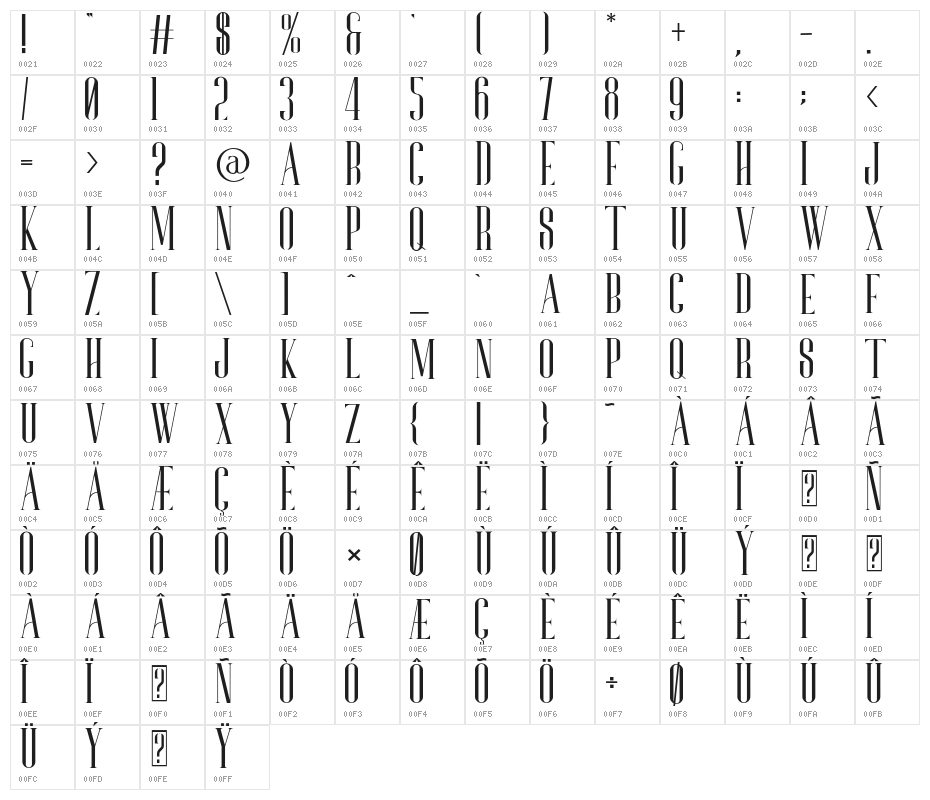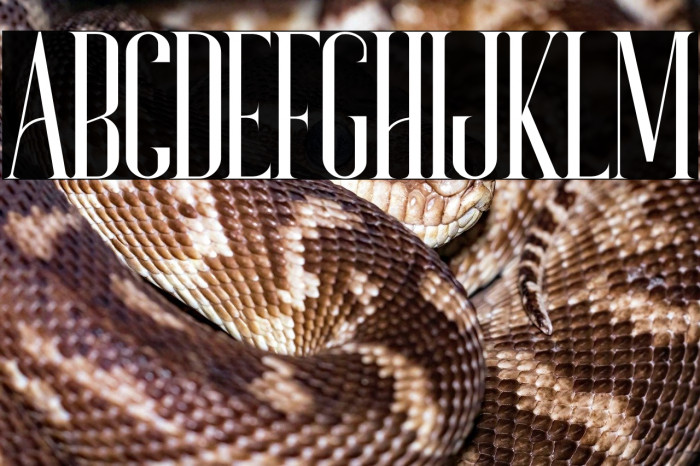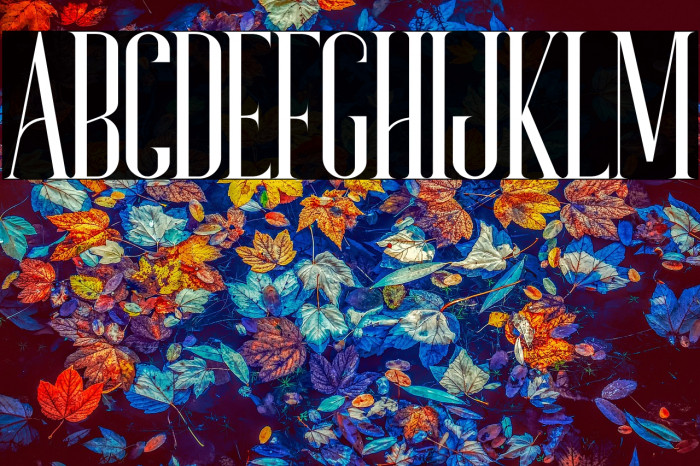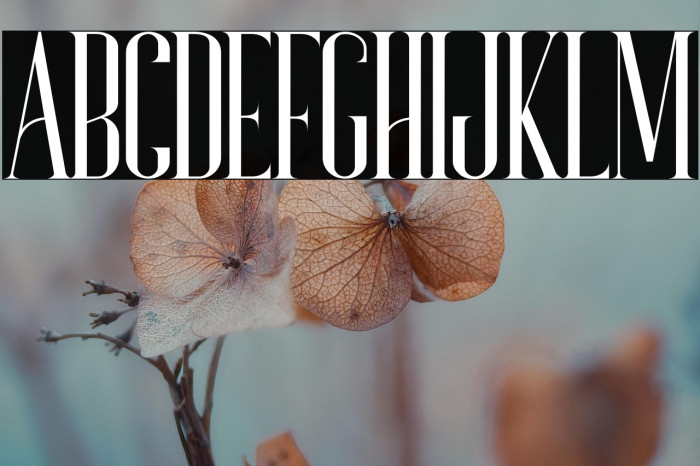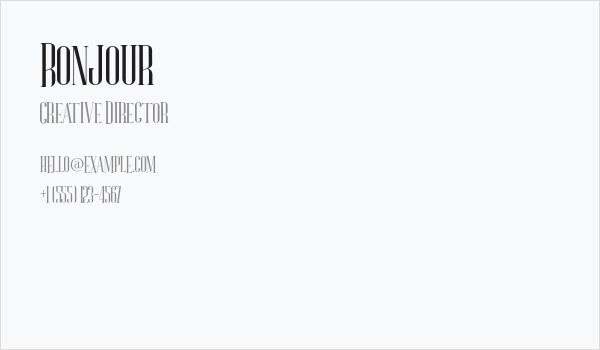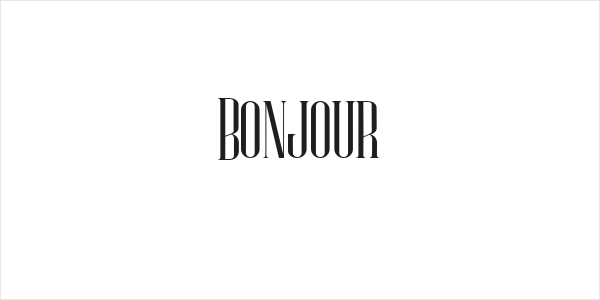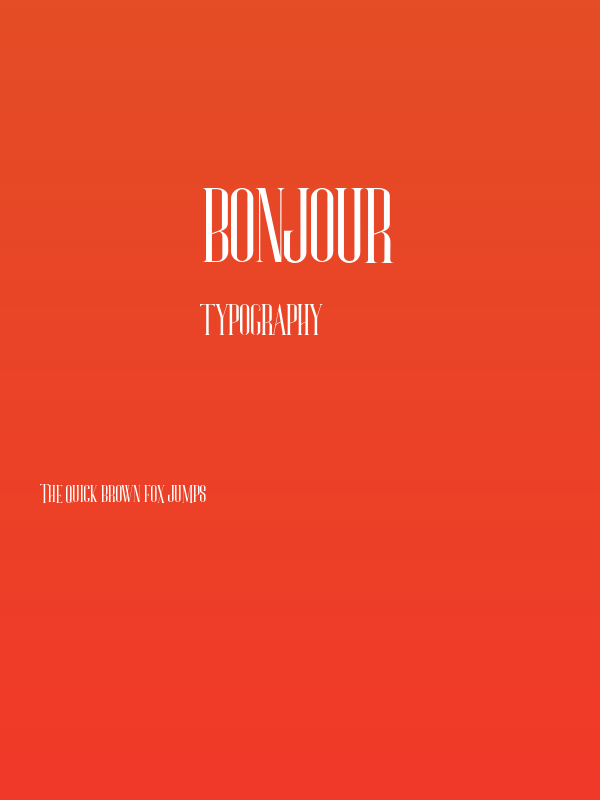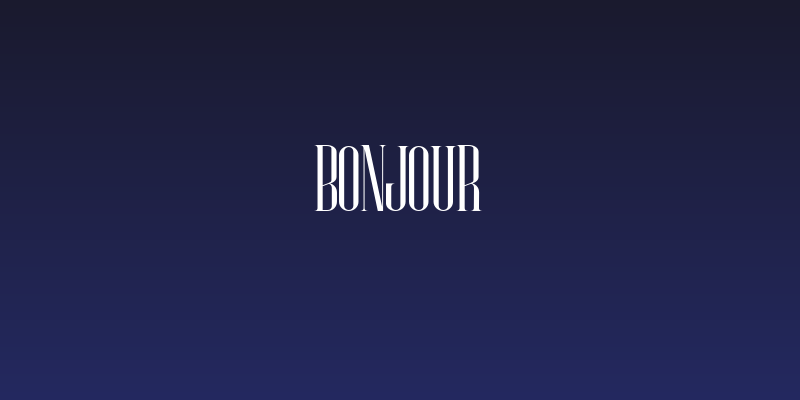
Bonjour Font
Bonjour Description
This font features an elegant and elongated design with high contrast between thick and thin strokes, giving it a sophisticated and stylish appearance. The uppercase letters are tall and narrow, while the lowercase letters maintain a consistent height, creating a harmonious flow. The numerals are distinct and align well with the overall aesthetic. Special characters are designed with the same attention to detail, ensuring consistency throughout. This font's unique style makes it ideal for projects that require a touch of elegance and modernity.
| Proposed Projects | Ideal for luxury branding, fashion magazines, high-end product packaging, and elegant invitations. |